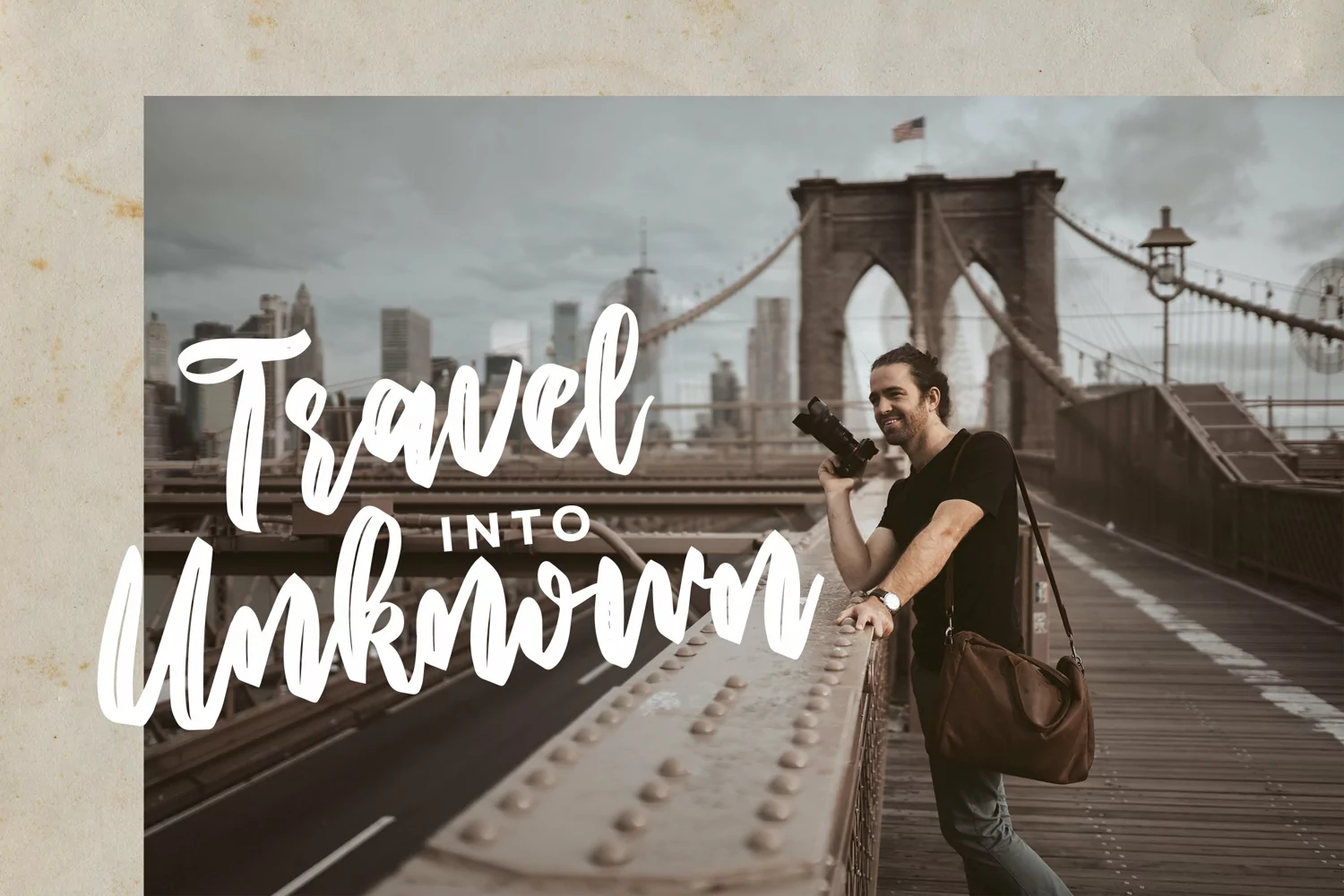
Graciella - Script Font that contain lowercase, uppercase, symbol, and also support multi language. There’s a lot ligatures in this font. This Font also comes with ligatures, alternates and many more. this font suitable for fashion, branding, catalog and other design what you want.